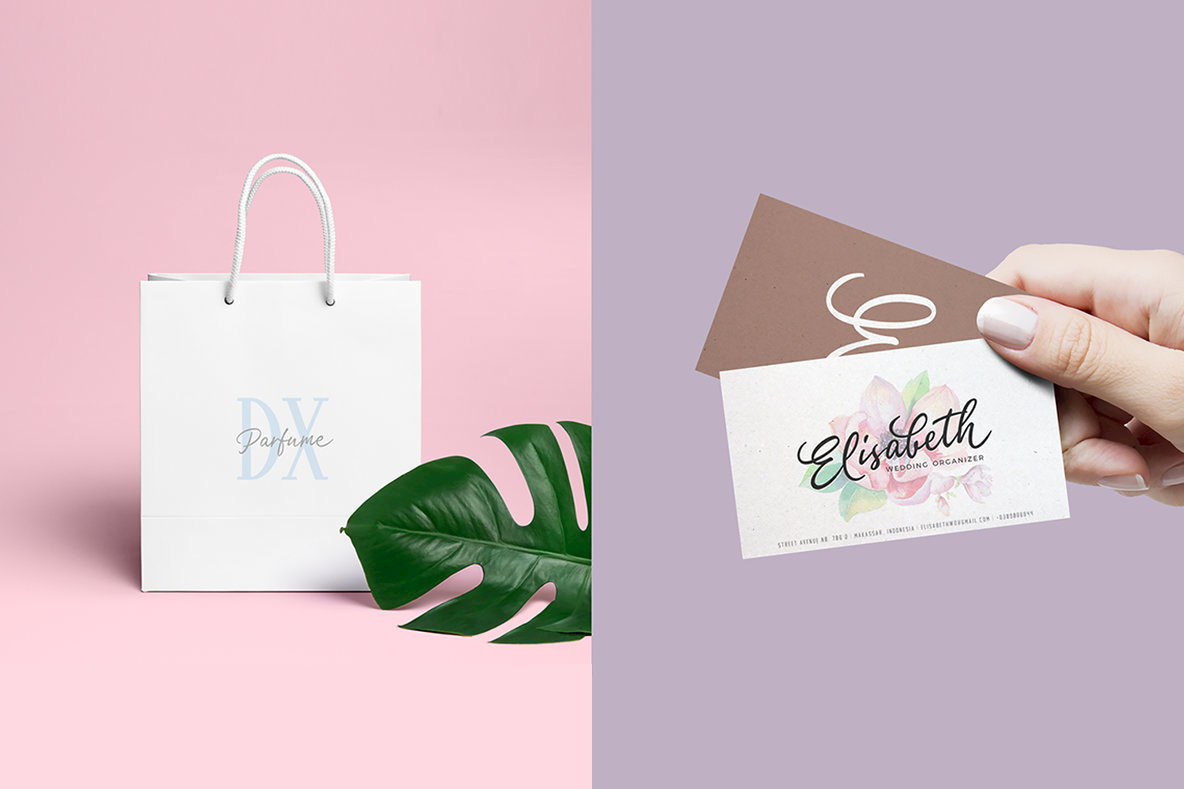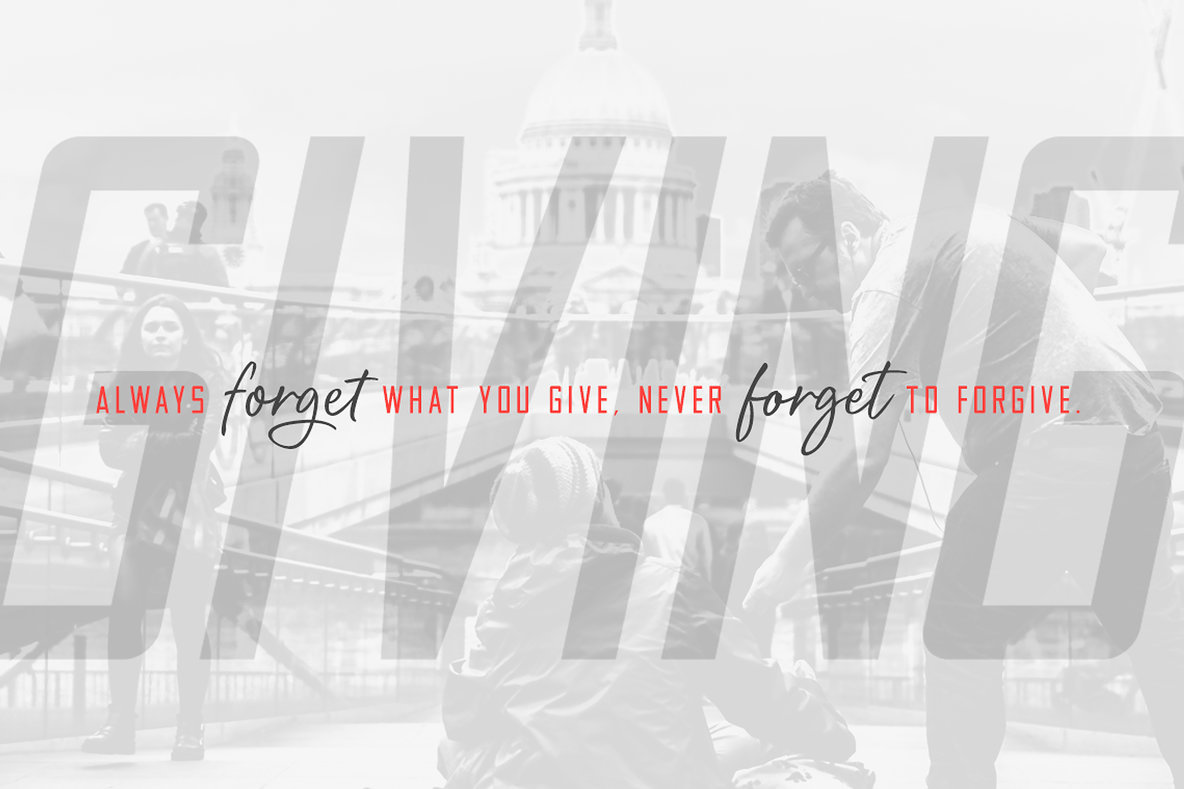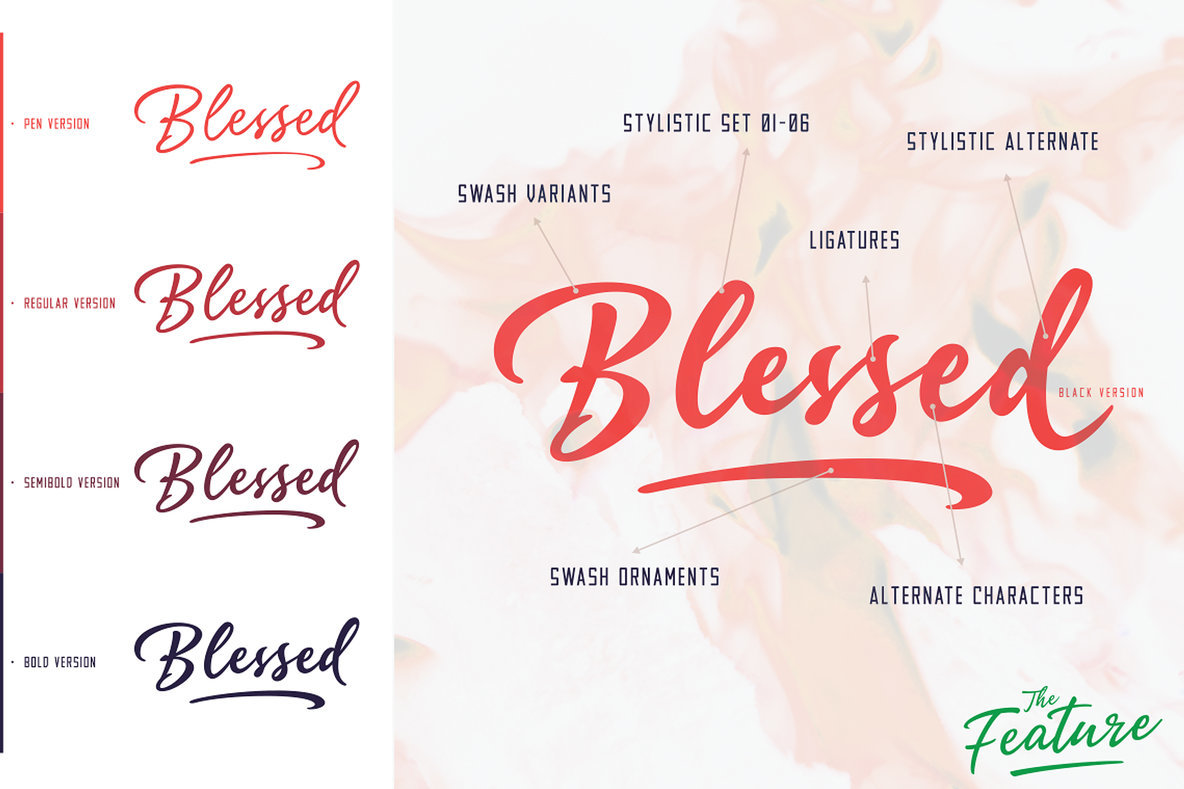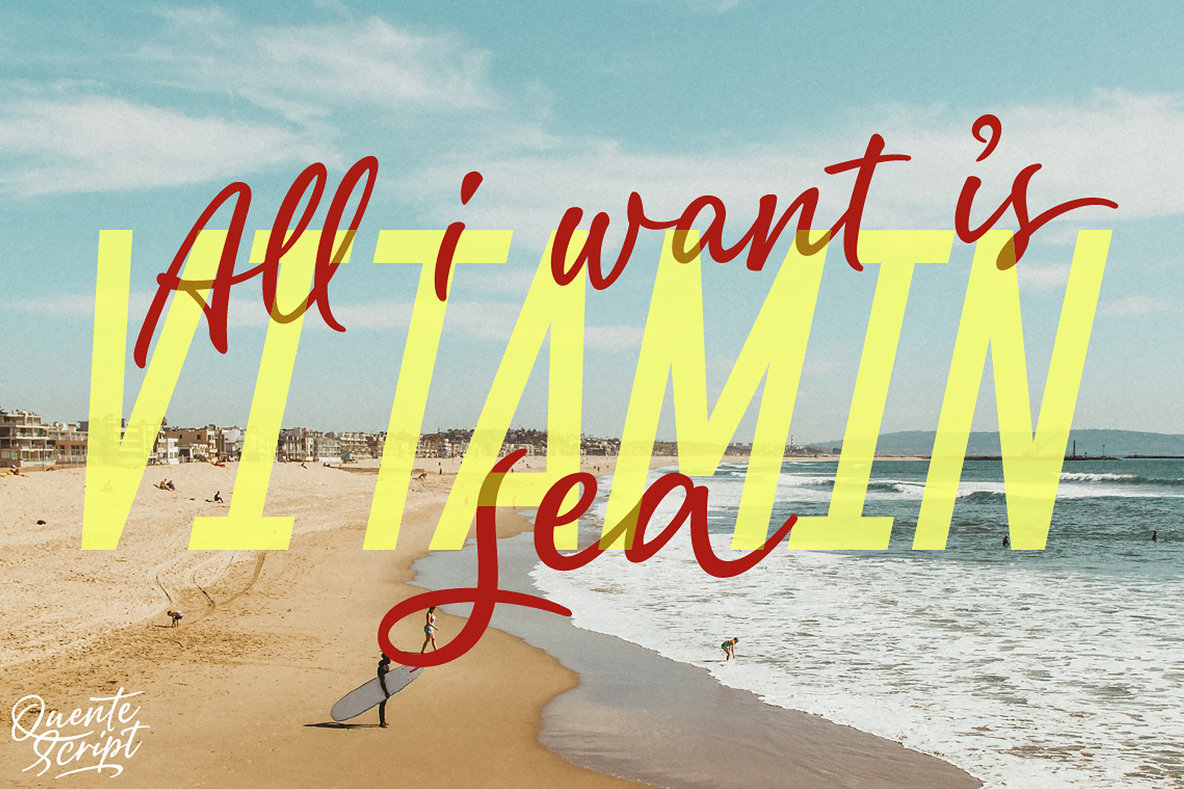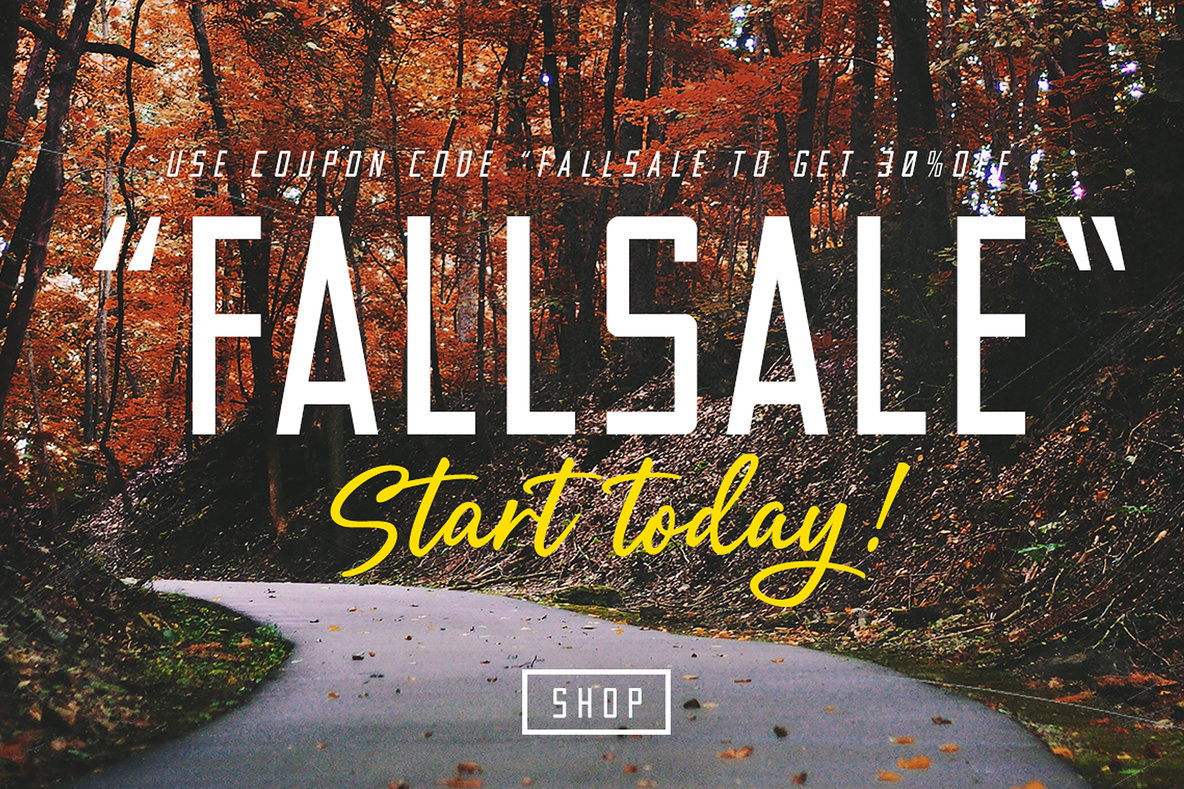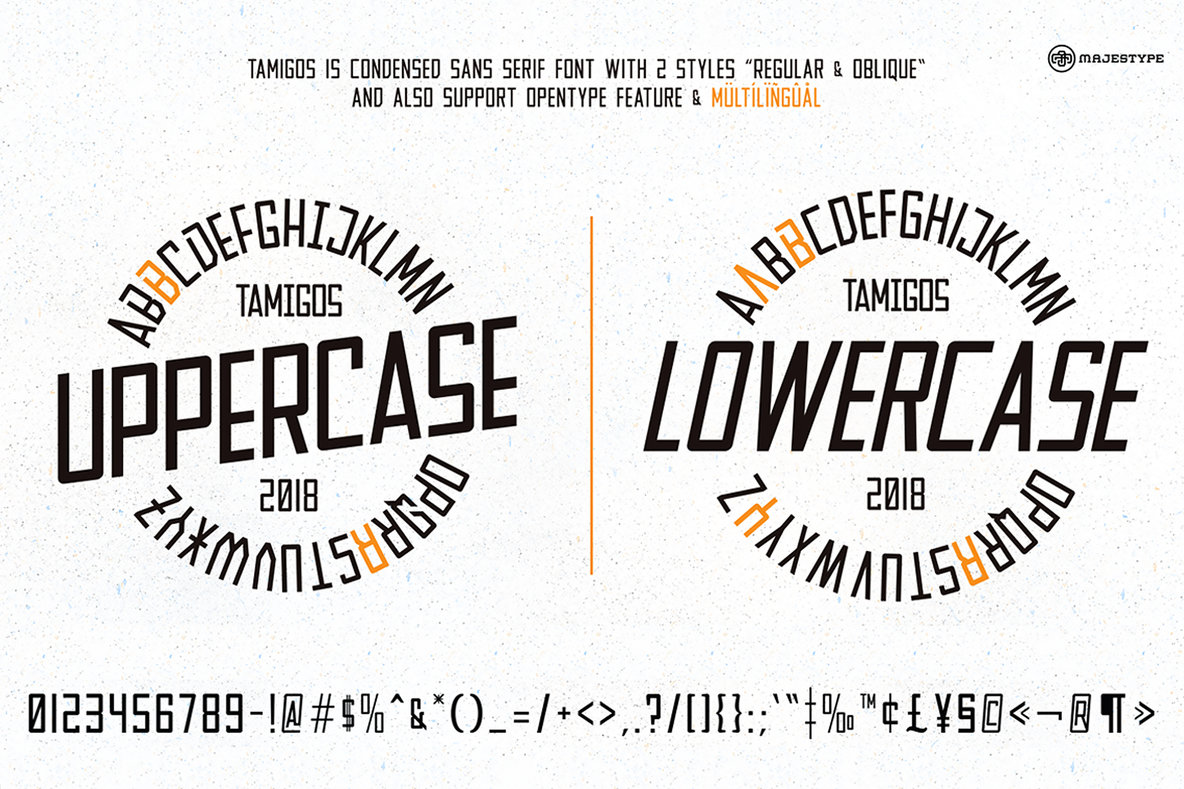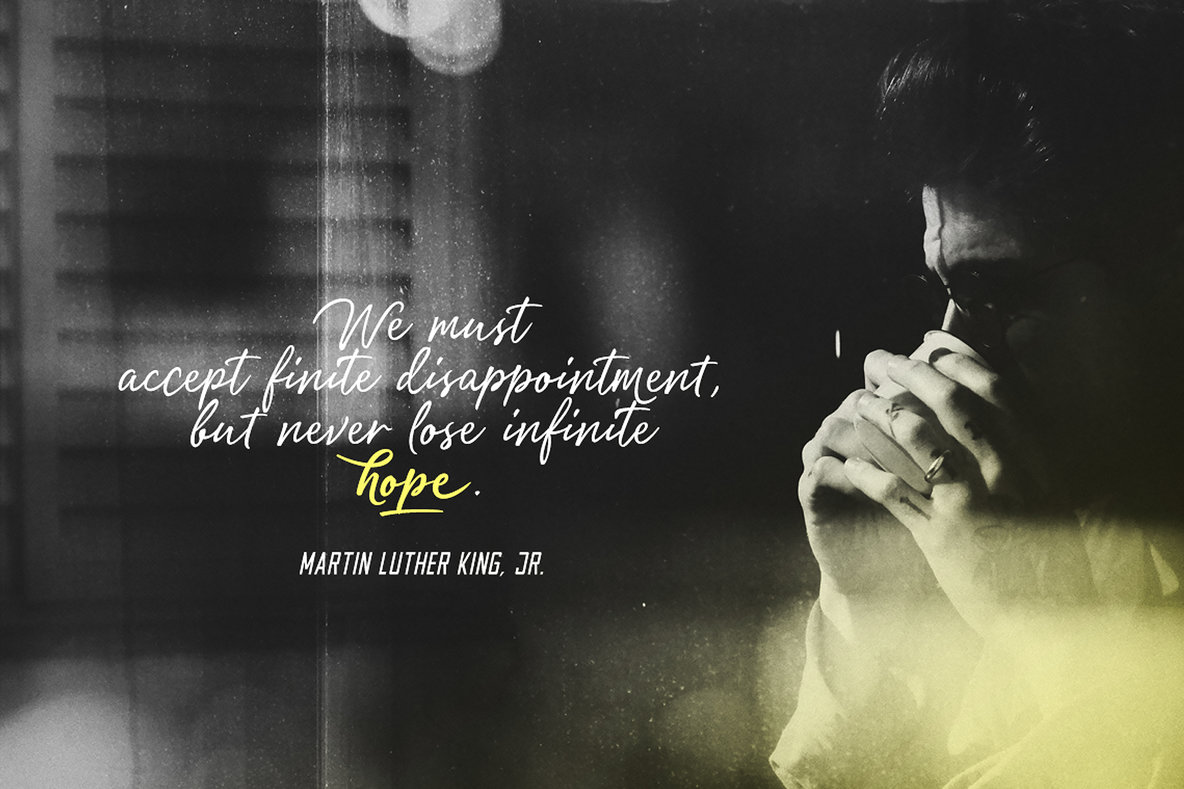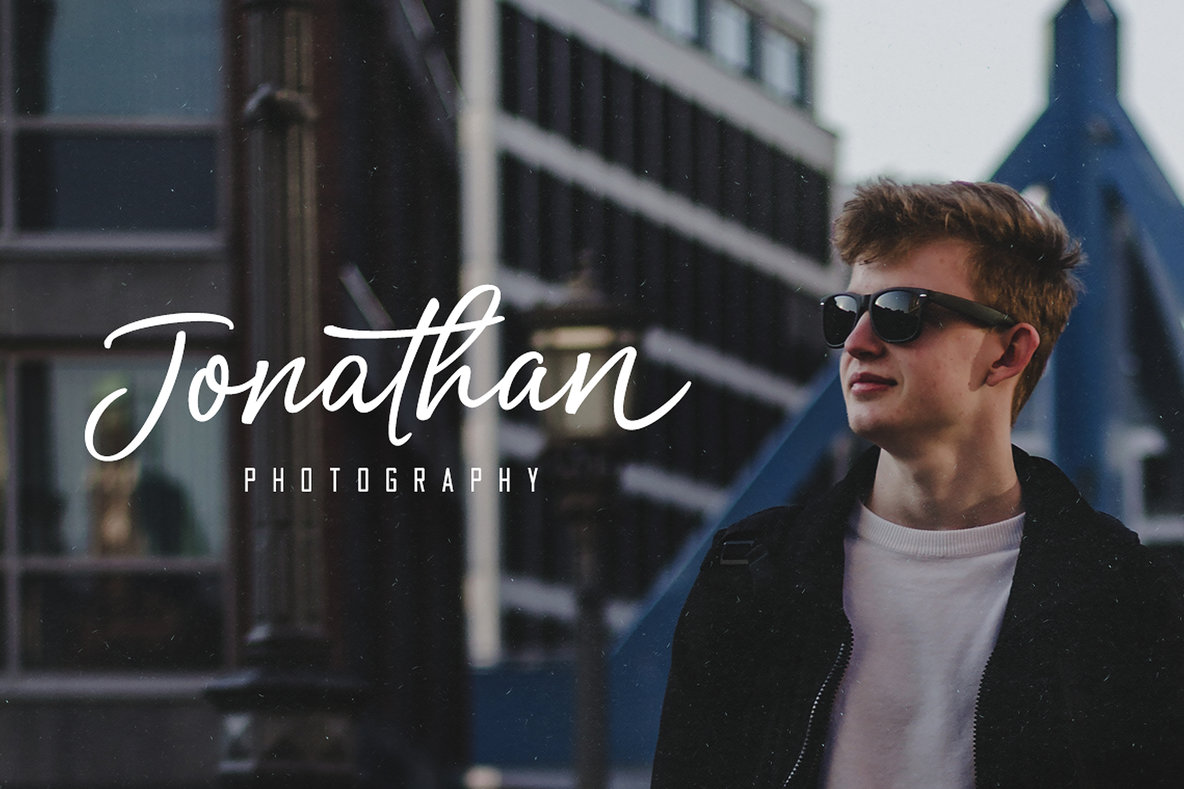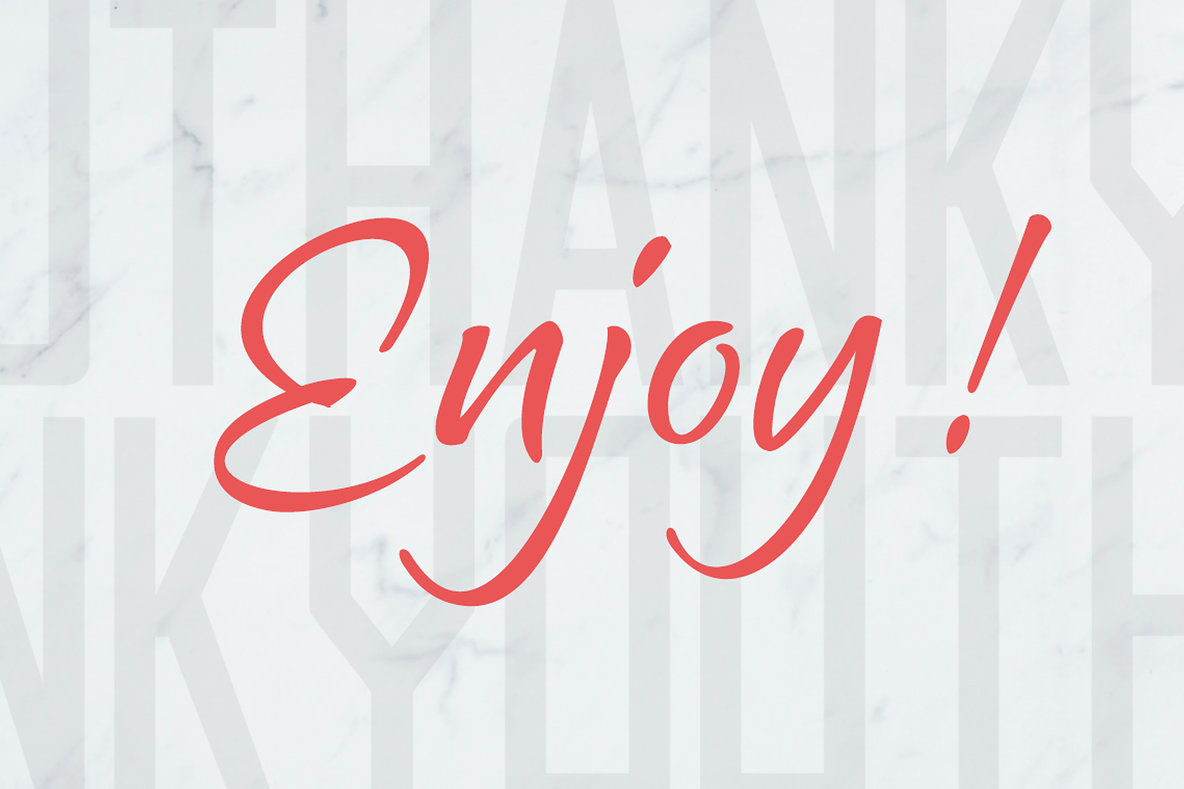
Quente Script and Tamigos Font
Quente Script is a blend of handwritten styles that merge into a font. When you look at this font you will feel a very strong mix of interaction between classic style, handwriting, signature and brush pen. Quente Script comes with 5 variations: Pen, Regular, SemiBold, Bold dan Black which is aims to provide more experience to anyone who uses this font.
Tamigos is almost identical to Quente Script. It is a condensed sans serif combined with classic and modern style.